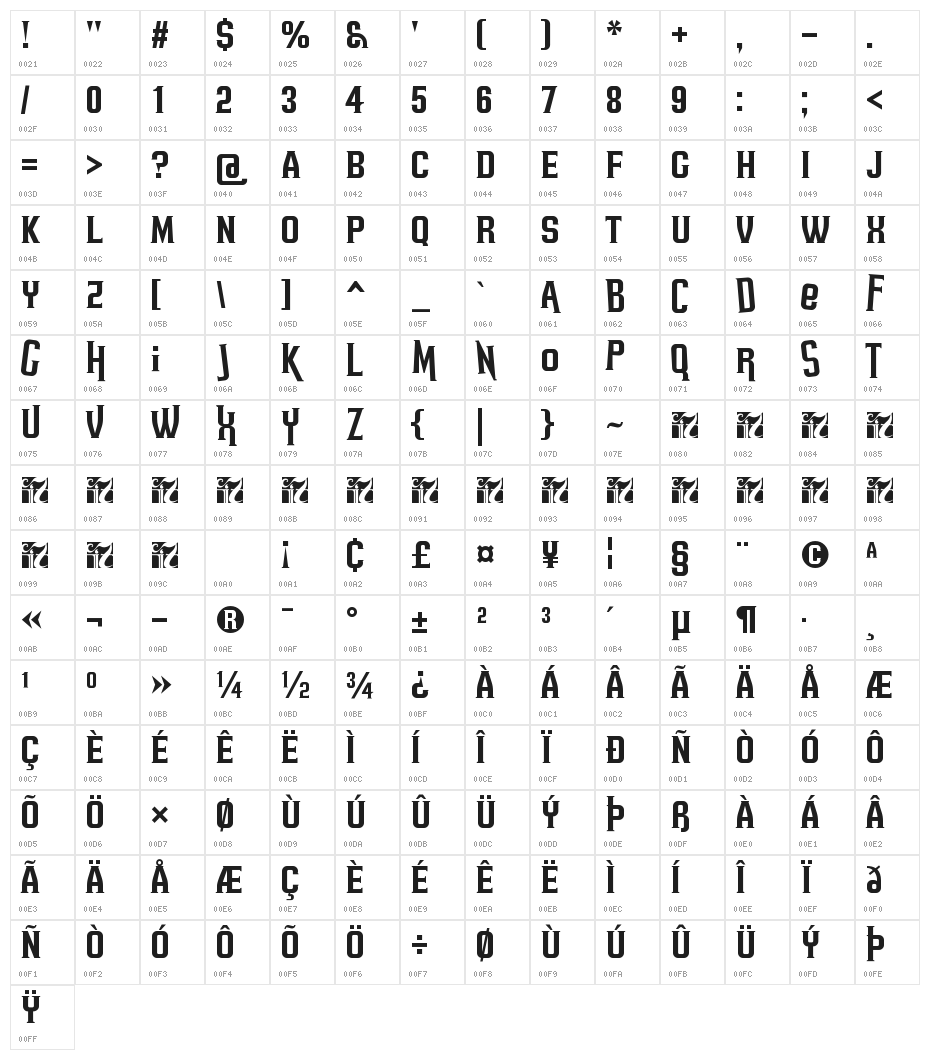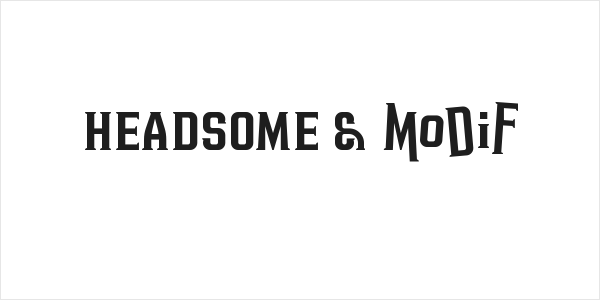
HEADSOME & modif Font
✎ Thick
| Vorgeschlagene Projekte | Ideal for branding, posters, headlines, and any design that requires a bold, impactful font. |